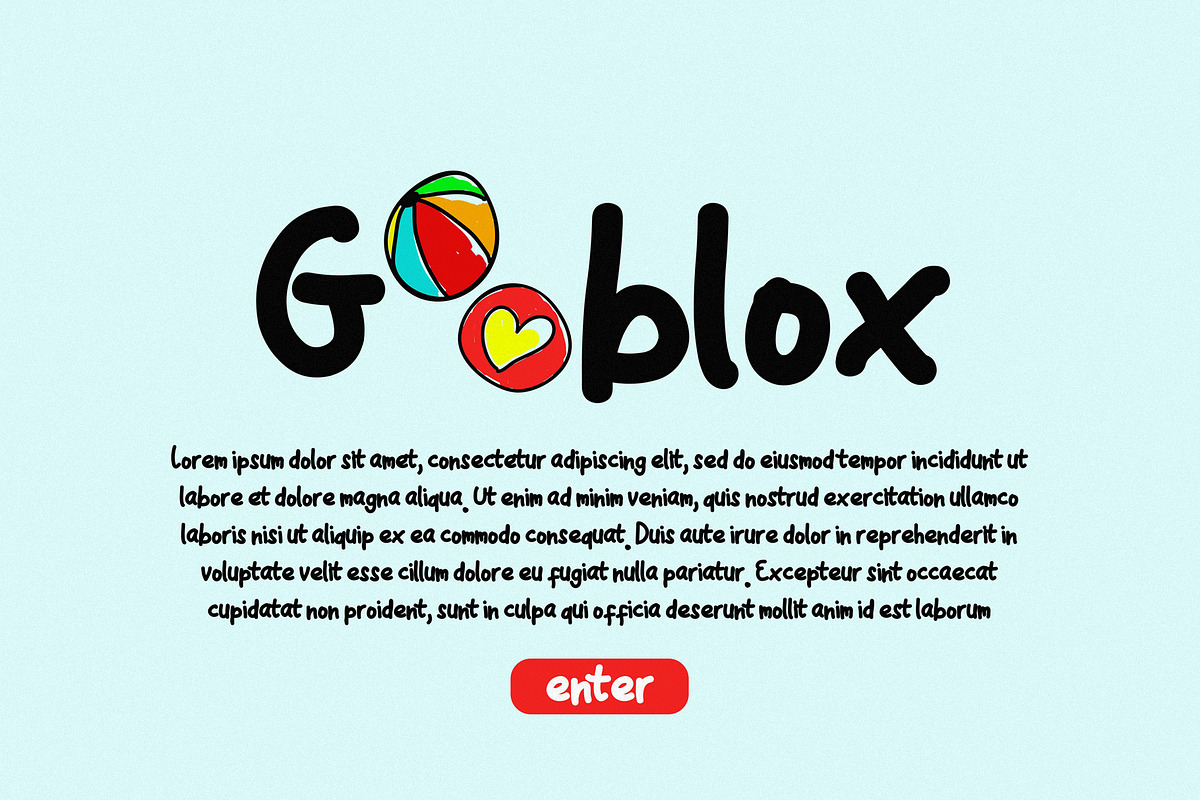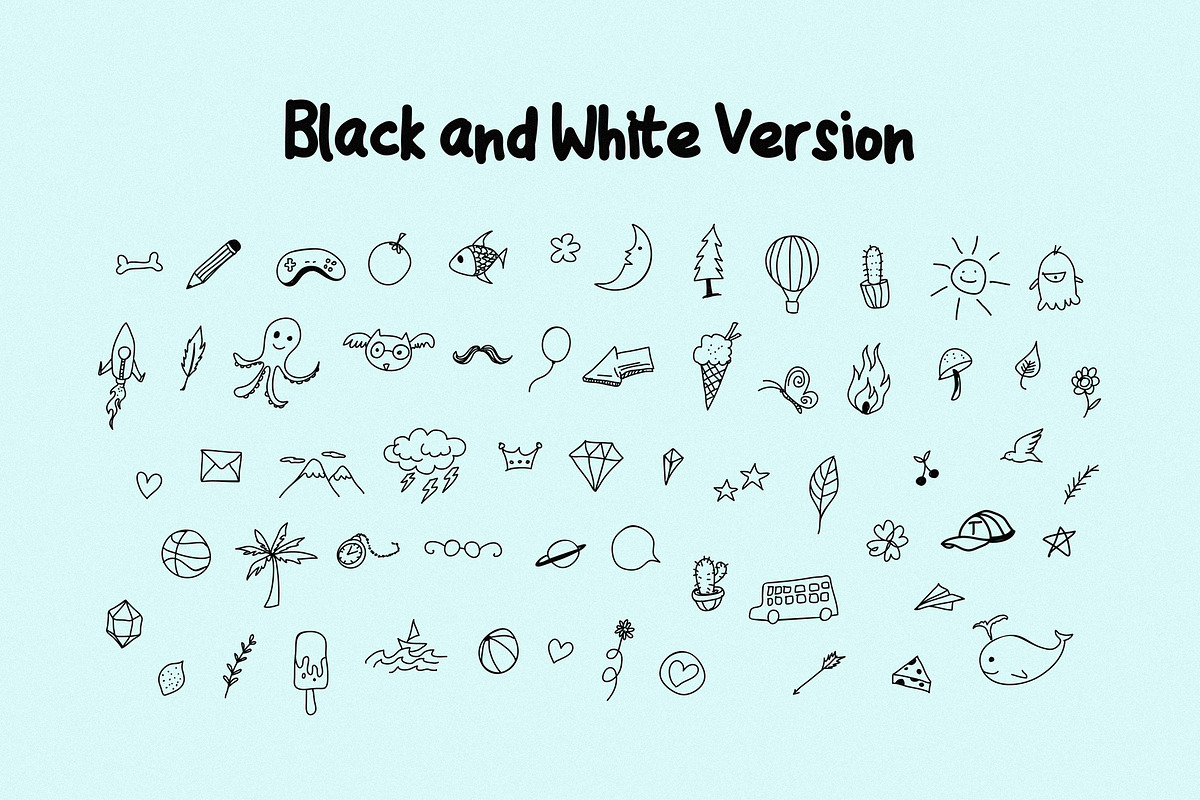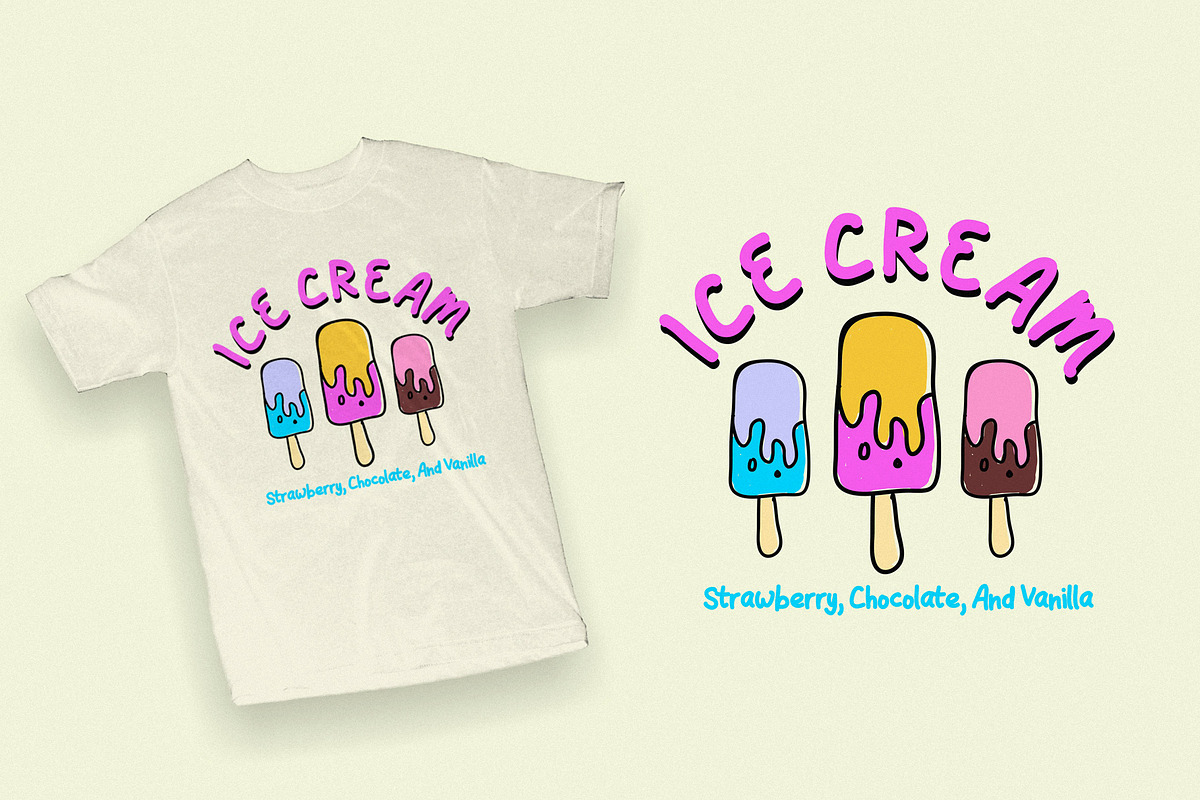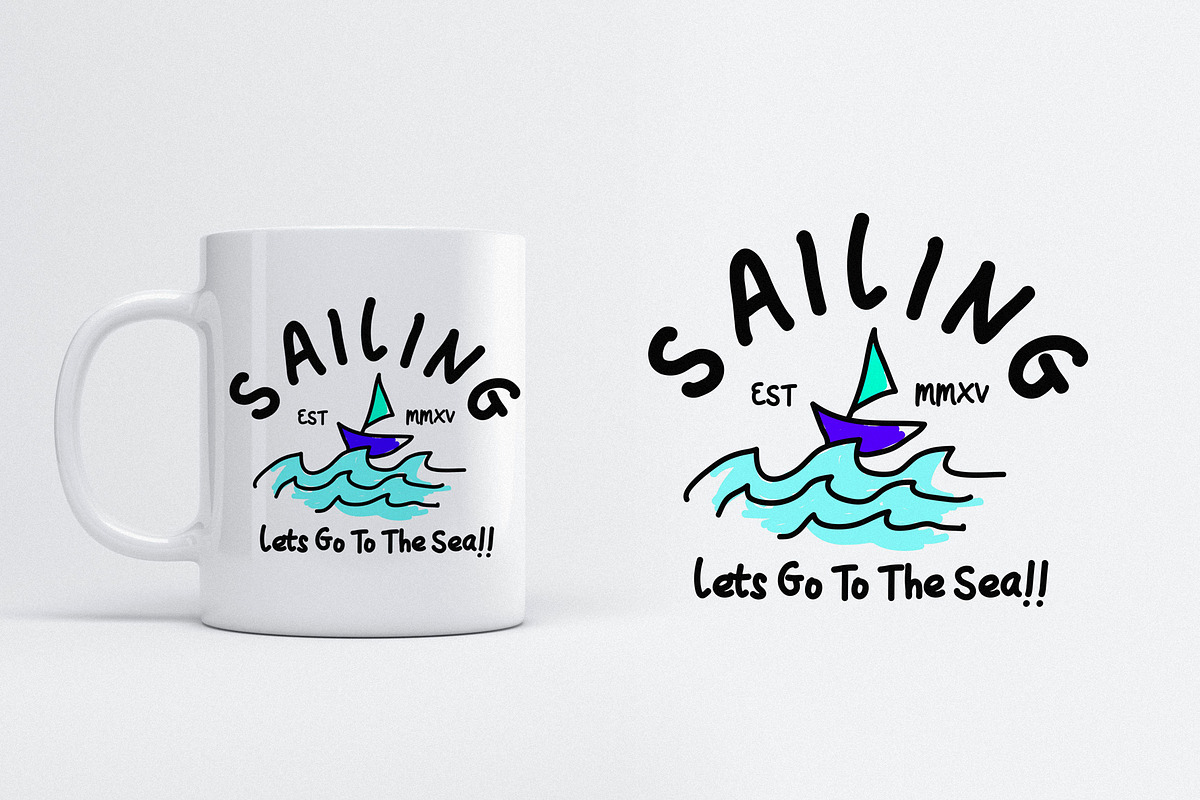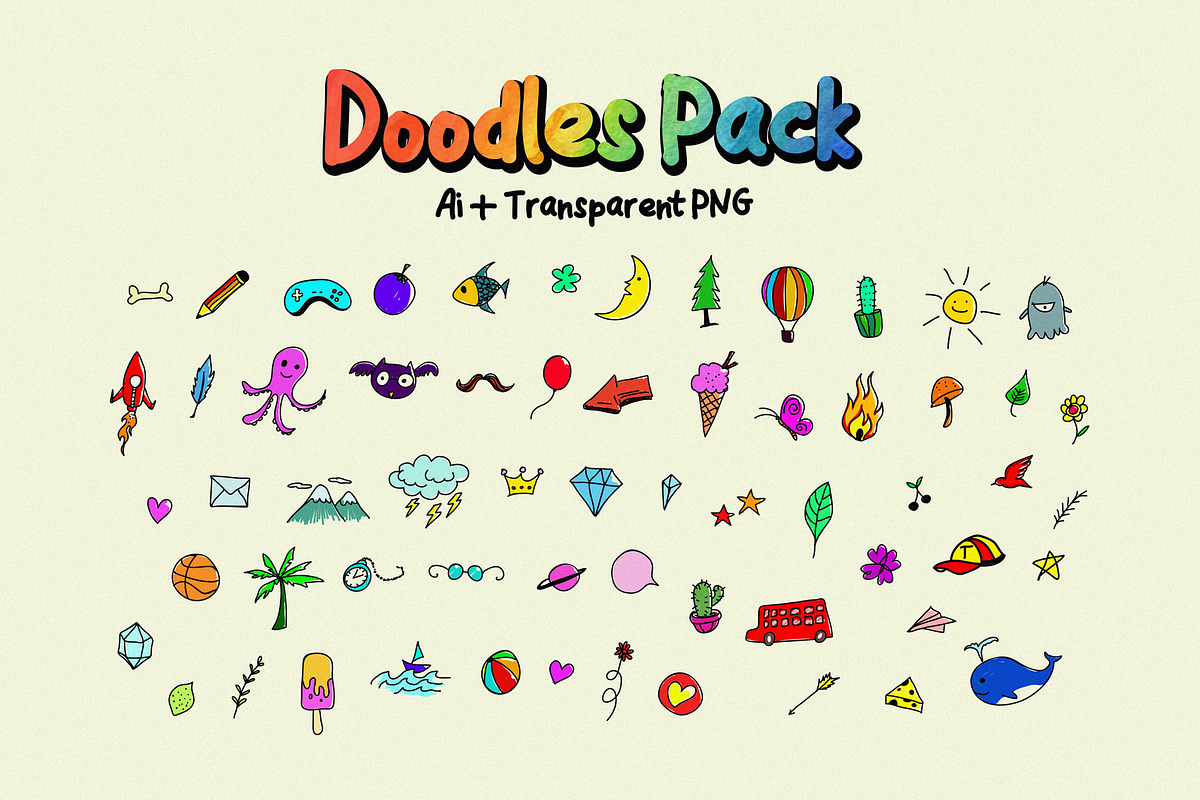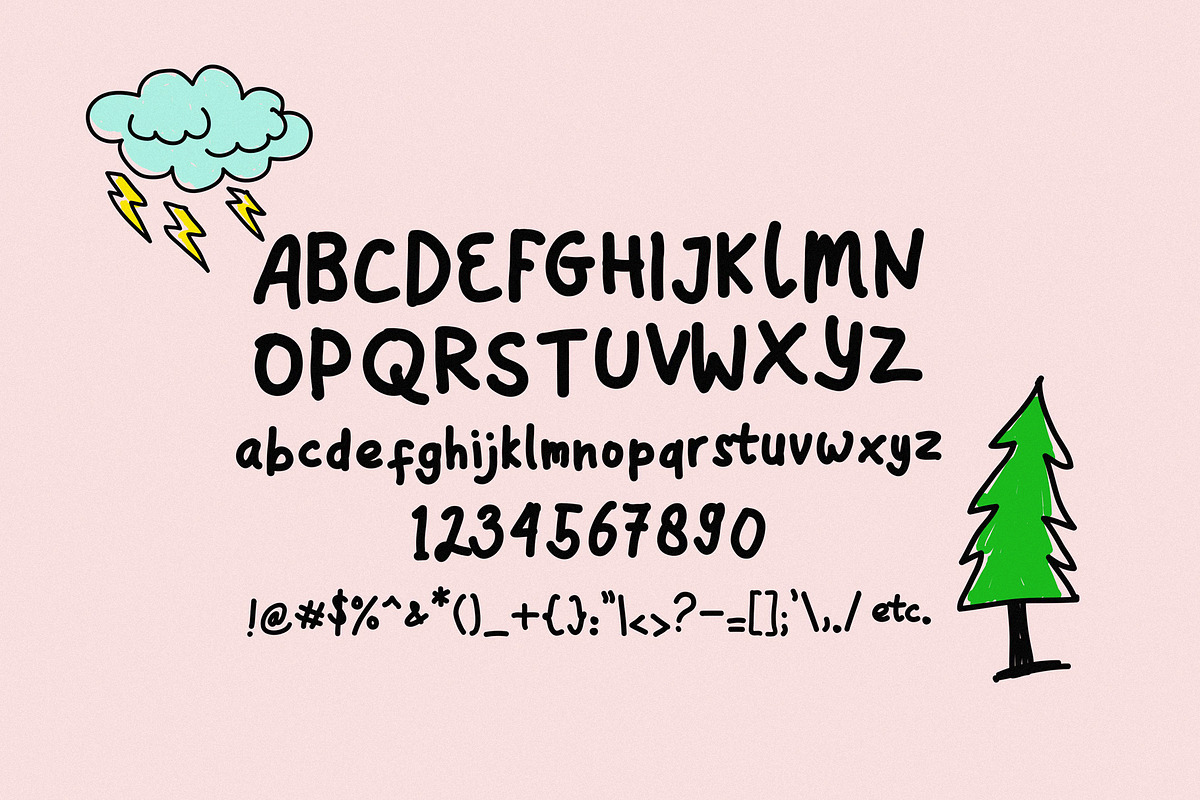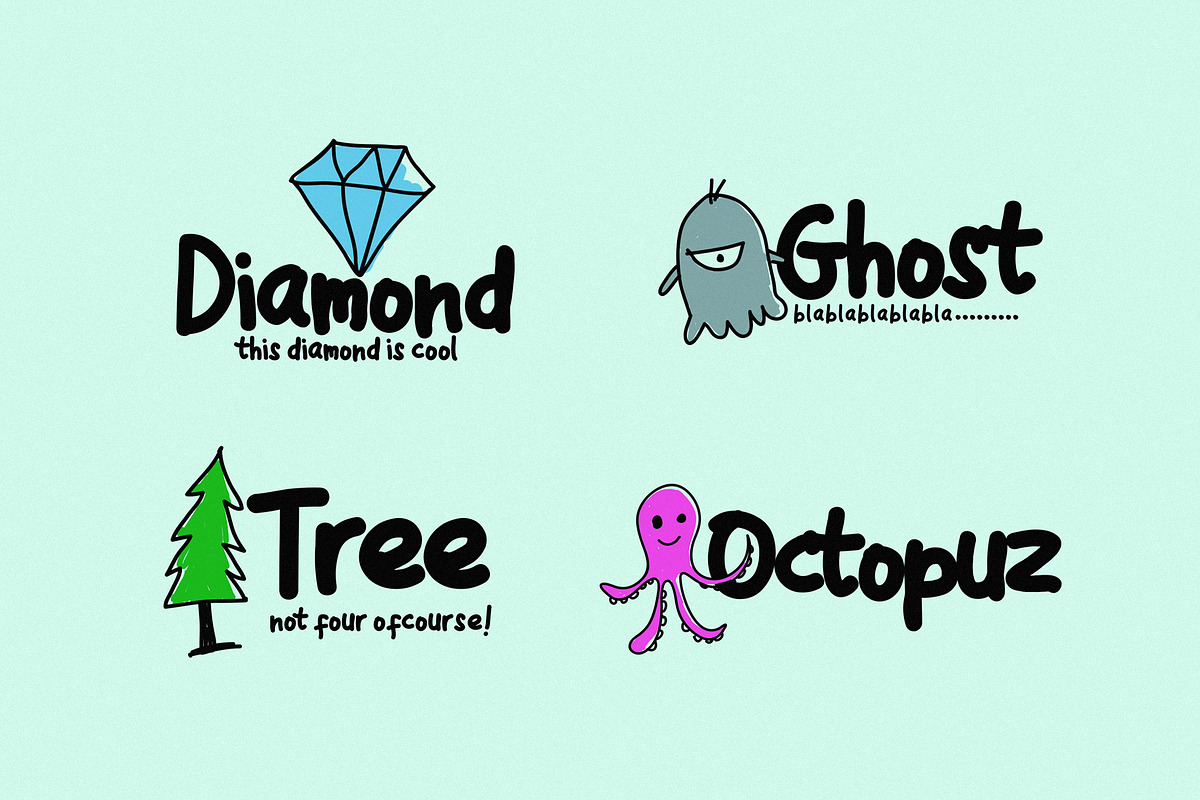
Fun Story Font + 60 Illustration
Fun Story is Children Font !!
yes its only for childrens or kids design purpose i.e kid book, baby tees, kid brand etc.
include 61 doodle illustration.